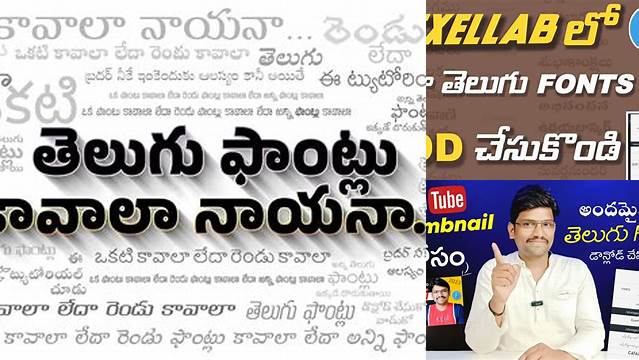
Best Telugu Fonts For YouTube Thumbnails: Attract Viewers
Are you a Telugu content creator looking to make your YouTube videos stand out? Do you want to grab viewers' attention instantly and entice them to click on your videos? One of the most effective ways to achieve this is by crafting compelling thumbnails. And what's the secret ingredient to a killer thumbnail? The right font! In this article, we'll dive deep into the world of Telugu fonts for YouTube thumbnails, exploring the best options, how to use them effectively, and tips to create eye-catching visuals that boost your click-through rates. So, let's get started, guys!
Why Telugu Fonts Matter for Your YouTube Thumbnails
Okay, so why should you even bother with Telugu fonts? Why not just stick to the default fonts available in your video editing software? Well, the answer is simple: Telugu fonts add a unique flavor and personality to your thumbnails. They help you connect with your target audience, the Telugu-speaking viewers, in a more meaningful way. Think about it: when viewers see a thumbnail with Telugu text, they immediately understand that the video is made for them. This sense of familiarity and relevance significantly increases the chances of them clicking on your video. Furthermore, using the right Telugu fonts can convey the tone and style of your video. Are you creating a fun, lighthearted comedy skit? Or maybe an educational tutorial? The font you choose can subtly communicate this to your audience, setting the right expectations and drawing in the right viewers. Using appropriate Telugu fonts is more than just about aesthetics; it's about effective communication. It's about making your thumbnail instantly recognizable and memorable. In a sea of videos, a well-designed thumbnail with a striking Telugu font can be the difference between getting lost in the crowd and becoming a viral sensation. So, investing time and effort in selecting the right Telugu fonts and designing your thumbnails accordingly is a crucial step towards success on YouTube, especially if you're targeting the Telugu-speaking audience. Don’t underestimate the power of a well-crafted thumbnail – it's your first impression and the key to unlocking more views and subscribers! Let's dive deeper into the best Telugu fonts to make your thumbnails pop.
Top Telugu Fonts to Elevate Your Thumbnail Game
Now that we've established the importance of Telugu fonts, let's explore some of the best options you can use for your YouTube thumbnails. Choosing the right font can be a game-changer, so we'll cover a range of styles to suit different video types and personalities. Remember, the goal is to find fonts that are both visually appealing and easy to read, even at a small size. Also, the font must be free to use! Here are some popular Telugu fonts that you can use to start creating amazing thumbnails:
Google Fonts Telugu: A Solid Choice
Google Fonts is an incredible resource for a vast selection of free fonts, and they offer a fantastic range of Telugu fonts. Some of the popular fonts include 'Roboto', 'Open Sans', and 'Lato'. While these might not be native Telugu fonts, they provide excellent readability and versatility, making them a solid choice for your thumbnails. The beauty of using Google Fonts is their seamless integration with various design tools, such as Canva, Adobe Photoshop, and GIMP. Plus, Google Fonts are designed to work well on different devices and screen sizes, ensuring your thumbnails look great regardless of where they are viewed. For instance, Roboto is known for its clean, modern look, which is perfect for conveying a professional and clear message. On the other hand, Open Sans offers a slightly more friendly and approachable vibe, suitable for lighter content. Remember to experiment with different sizes, colors, and effects (like outlines or shadows) to make your text stand out even more.
FontSpace Telugu Fonts: Explore More Options
FontSpace is another excellent platform to explore a diverse collection of fonts. While it might not be as extensive as Google Fonts for Telugu fonts, you can still find some gems. When exploring FontSpace, pay close attention to the licensing details of each font. Ensure that you are allowed to use them commercially, especially if you plan to monetize your YouTube videos. When choosing fonts, consider the overall style of your videos. Are they educational, entertaining, or something else? Matching the font style with your content creates a cohesive and engaging experience for your viewers. For example, if you create fun, lifestyle videos, you might choose a slightly more playful and whimsical font. For more serious topics, a cleaner, more formal font would be more appropriate. Always double-check the font's legibility and readability, especially when using them in small thumbnail sizes. Test them out in your design software and see how they look on different backgrounds and alongside other design elements. Don’t be afraid to experiment and combine different fonts to create a unique look that represents your channel's brand.
Font Squirrel Telugu Fonts: Free and High-Quality
Font Squirrel is known for offering high-quality, free fonts, making it another great resource for your Telugu fonts search. The fonts on Font Squirrel are generally well-curated, so you can be sure that you are getting fonts of good quality. The site's focus on quality means that you will usually find fonts that are not only visually appealing but also optimized for display, which is crucial for thumbnails. When you select a font from Font Squirrel, you are also provided with information about the font's license. This allows you to ensure the font meets your usage requirements, particularly concerning commercial use. Remember, it's essential to check the font's license to stay compliant with copyright laws and avoid any legal issues. Take advantage of the preview features on Font Squirrel to test different fonts and visualize how they will look in your thumbnails. Try using the fonts on different backgrounds, with various colors, and in combination with images and other graphic elements. Make sure your text is easily readable, even when the thumbnail is viewed on a small screen. When you are designing thumbnails, the aim is to grab your audience’s attention and pique their curiosity. This means that the font has to be clear, legible, and aligned with the overall theme and subject matter of your videos. By using these different resources, you can access a wide selection of fonts, find the right style for your brand, and create thumbnails that are effective and attractive.
Tips for Effective Telugu Font Usage in Thumbnails
Alright, now that you have some great font options, let's talk about how to use them effectively to create killer thumbnails. It's not enough to just slap some text on a background; there's an art to it! Proper Telugu font usage can significantly impact your thumbnail's effectiveness. Remember, a well-designed thumbnail can significantly increase your click-through rate (CTR), resulting in more views and subscribers.
Font Pairing: Balancing Visual Harmony
- Limit the number of fonts: Stick to a maximum of two fonts in your thumbnail. Too many fonts can make your thumbnail look cluttered and unprofessional. The goal is to create a visually appealing and clean design. Choose a primary font for your main headline or title and a secondary font for supporting text or details. Ensure your fonts complement each other. Consider the style, size, and overall look of each font to make sure that they are visually harmonious. For instance, pairing a bold, impactful font with a simpler, more readable one can create a balanced look. Try different combinations to see what works best for your content.
- Contrast is King: Make sure your font choice contrasts well with the background. Choose a font color that is easily visible against your background image or color. If the background is dark, use a light-colored font, and vice versa. This ensures your text stands out and is easy to read, even on small screens. Use a contrasting color to make the text pop. Colors like white, yellow, and bright shades generally work well. Avoid using colors that blend into your background, as this will make your text disappear. High contrast is essential for readability.
- Consider Font Weights: Use different font weights (bold, regular, light) to add visual hierarchy. Use a bold font for your main title to grab attention and lighter weights for secondary details. This creates a visual flow that guides the viewer's eye. The bold weight emphasizes key information, while lighter weights provide supporting details without competing for attention. The objective is to create a balanced and visually appealing design.
Conclusion: Making a Mark with Telugu Fonts
Guys, using the right Telugu fonts for your YouTube thumbnails can significantly improve your channel's performance. By choosing the right fonts, ensuring readability, and following the tips above, you can create compelling thumbnails that grab attention, attract clicks, and grow your audience. Remember to experiment, analyze what works, and keep refining your design skills. With a little creativity and effort, you'll be well on your way to creating eye-catching thumbnails that help your videos stand out in the vast world of YouTube. Happy designing! Don't forget to stay updated with the latest design trends and incorporate them into your thumbnail designs. Good luck!